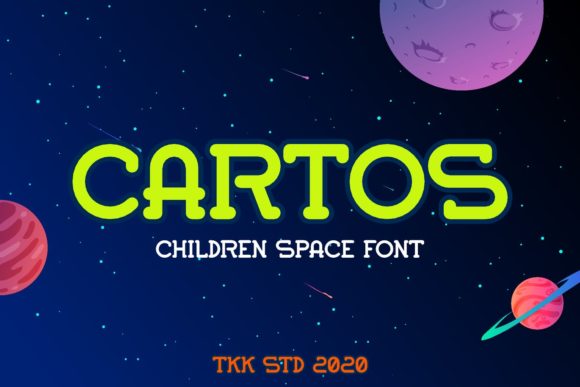
Get ready to unleash the fun and excitement with the Cartos font! This captivating display font is your secret weapon for creating unforgettable designs that will make your board games, posters, movie titles, fast food menus, magazines, and YouTube covers leap off the screen.
Picture this: Your board game box adorned with the playful and eye-catching Cartos font, inviting players to embark on an epic adventure. The movie title, emblazoned in the bold and unforgettable strokes of Cartos, promises an unforgettable cinematic experience. Your fast food menu, infused with the playful charm of Cartos, will have customers craving your delicious creations.
Cartos is not just a font; it's a gateway to a world of creativity. Its casual and cartoon-like style evokes a sense of nostalgia and whimsy, while its trendy and cute aesthetic adds a touch of modern flair. Every letter is expertly crafted to convey a sense of joyful excitement, making your designs irresistible to the eye.
With Cartos, you'll have the power to:
* Transform your board games into captivating works of art that ignite the imagination.
* Create movie titles that leave an indelible mark on the silver screen.
* Design fast food menus that tantalize taste buds and inspire cravings.
* Craft magazine covers that demand attention and ignite curiosity.
* Produce YouTube covers that captivate viewers and drive engagement.
Cartos is more than just a font; it's a creative companion that will help you express your unique style and connect with your audience on a deeper level. So why settle for ordinary fonts when you can unleash the extraordinary with Cartos?